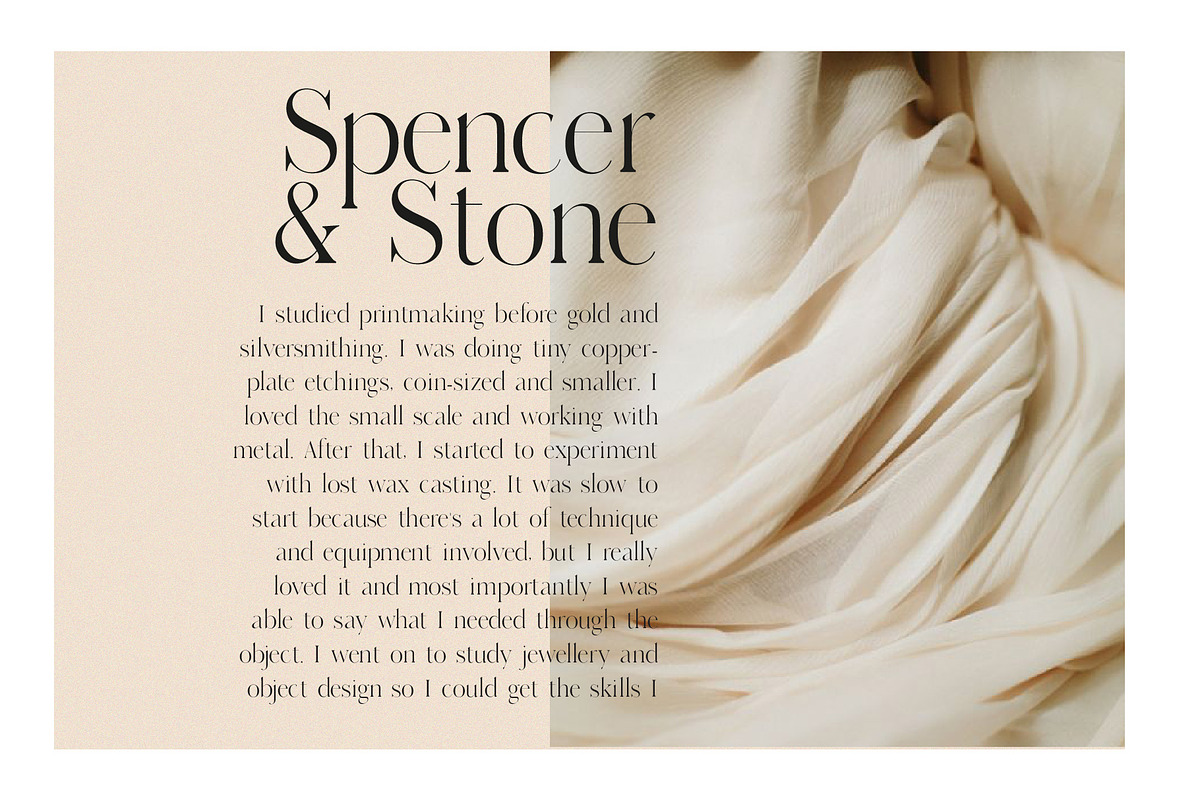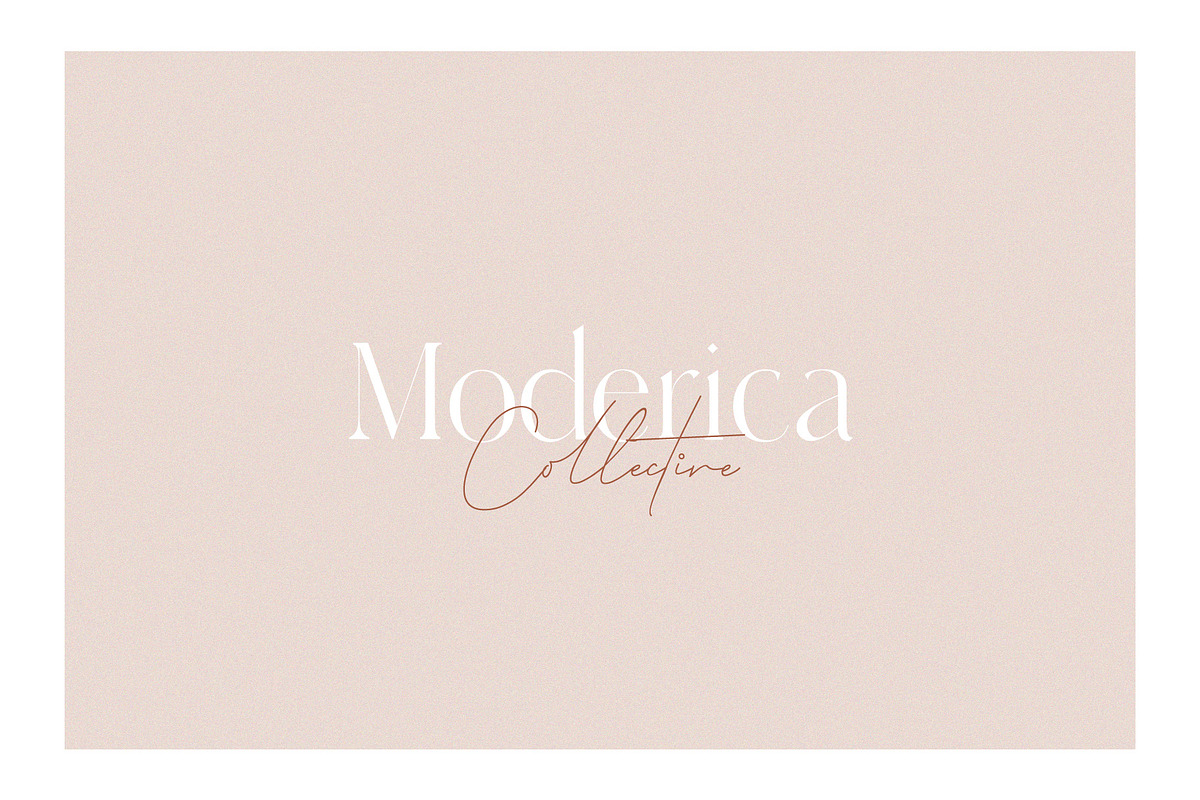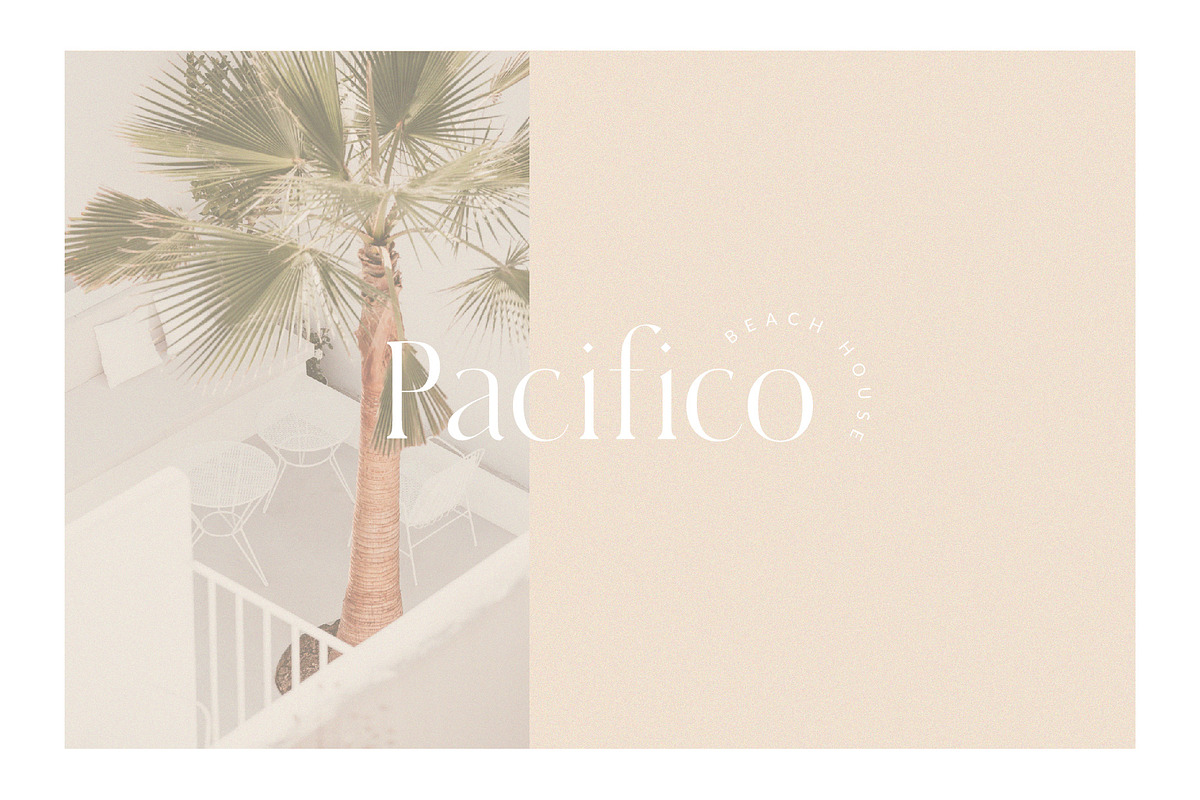
Dahlia Font is a classic serif typeface with a modern twist. The sharp serifs and diamond dots add a chic persian style while still staying legible. This versatile font works great for mastheads, pull quotes and wordmark logos.